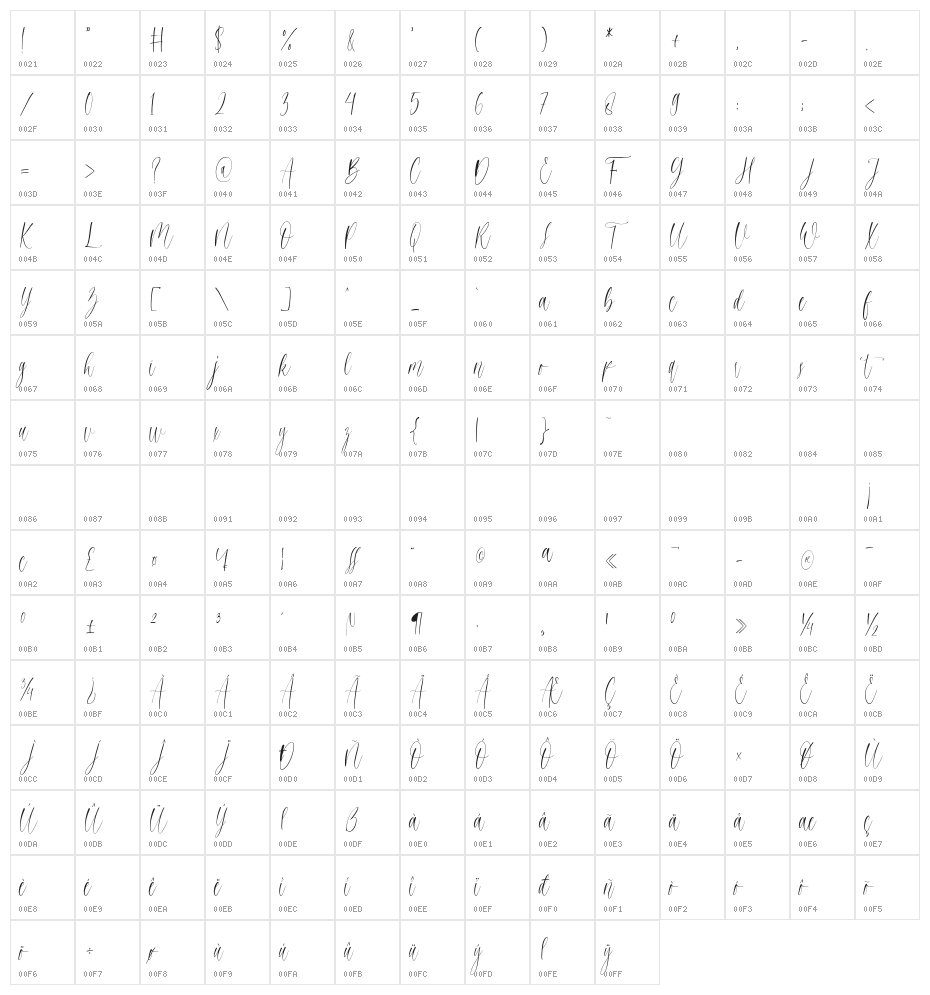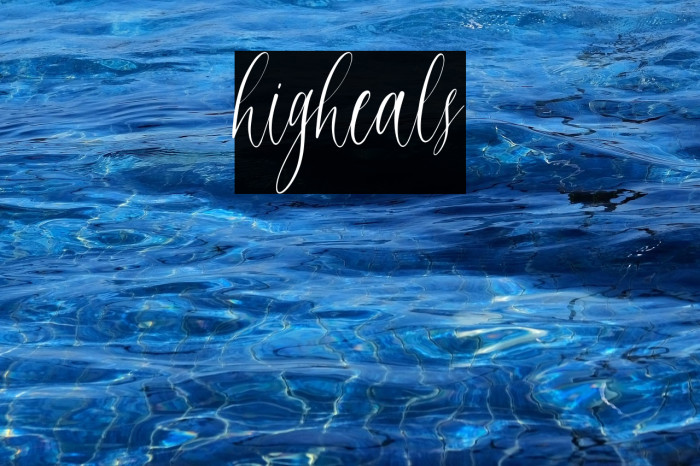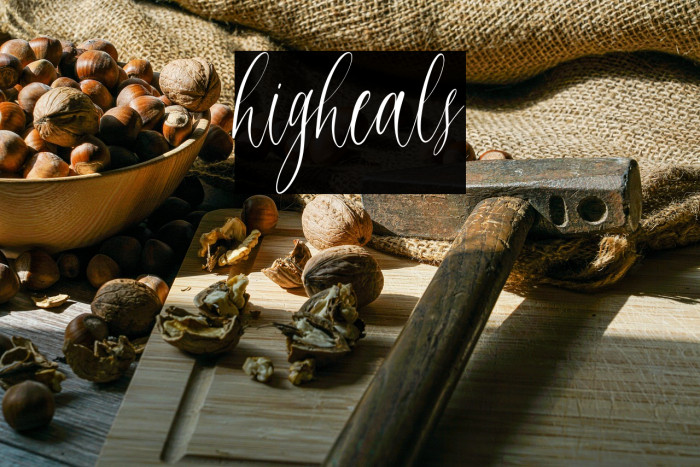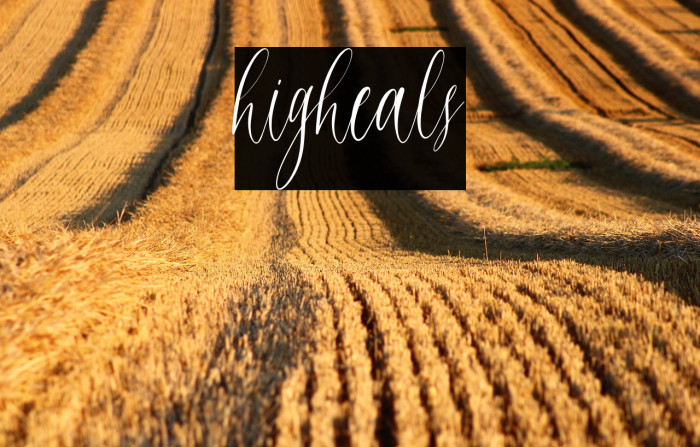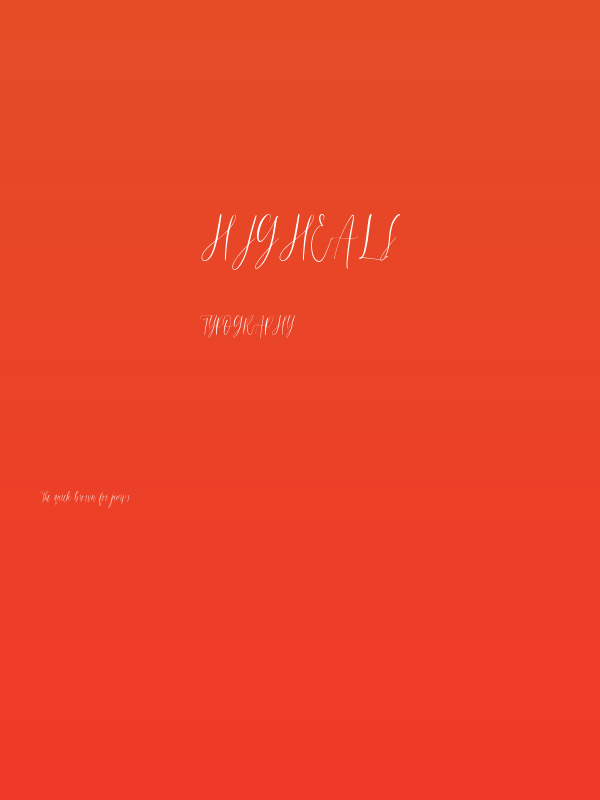
higheals Font
higheals Description
This elegant script font features flowing, cursive strokes with a modern flair. The characters are connected with smooth, sweeping lines that give it a handwritten appearance. The uppercase letters are tall and graceful, while the lowercase letters maintain a consistent flow with subtle variations in stroke width. The numerals are stylishly integrated with the same fluidity, and the special characters complement the overall aesthetic. This font exudes sophistication and is perfect for projects that require a personal touch.
| Use Case | Logos, Invitations, Greeting Cards |
| Proposed Projects | Ideal for wedding invitations, greeting cards, branding, and elegant packaging designs. |